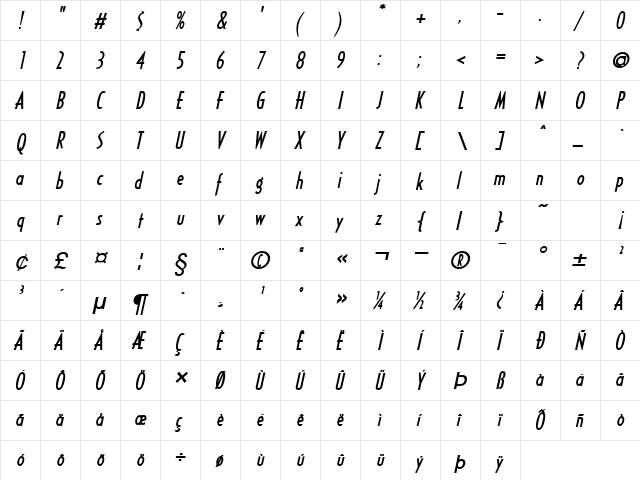
Southwestern Bold Italic
Design Context for Southwestern Typeface
Southwestern echoes the hand-painted signage and woodblock typography of the American frontier, with a warm, rugged personality. Its italic angle brings a sense of urgency and motion to the letterforms. Its bold stroke weight gives it real presence on the page.
A natural fit for craft spirits, ranch branding, rodeo events, and Americana-inspired design work.
Font Pairing: Combine Southwestern with a simple slab or neutral sans — period-accurate companions reinforce the vintage feel without competing for attention.
Pro Tip: Use Southwestern for short, impactful bursts of text — it shines in poster headlines and product names rather than extended copy.